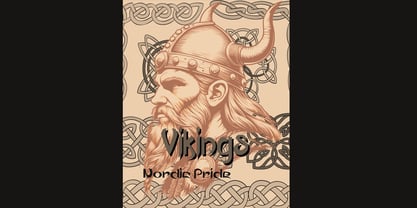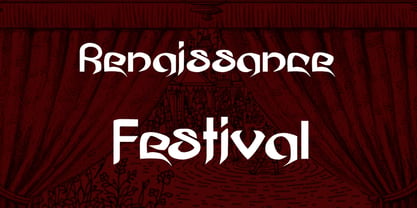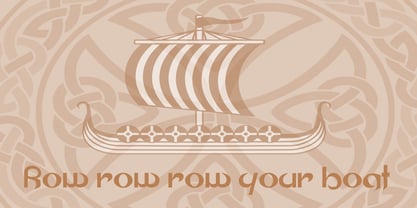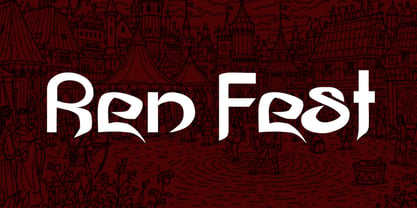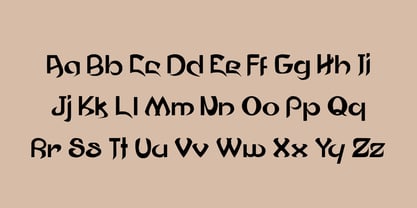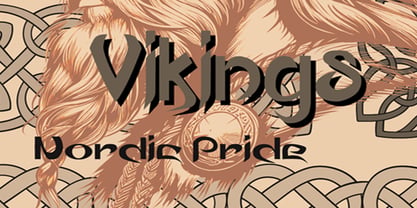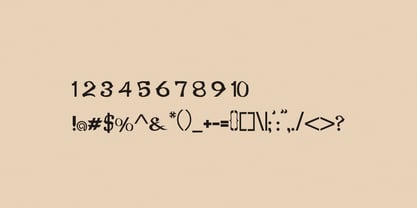
Ren Fest
Die Schriftfamilie Ren Fest wurde von John Pittman entworfen und von John Pittman veröffentlicht. Ren Fest enthält 1 Stile. Mehr über diese Familie
This is a single weight font. It is has a nice flow and each letter is made to contour to the next. I made it have an old fashion charm and the curves make it playful. It will adapt to other languages.
Ren Fest is a font that can be enjoyed by many. Its curvy design can cater to a variety of things like fairs, Dungeons and Dragons, or maybe even games. Ren Fest was first meant to have a Renaissance Viking vibe but it can be used for so much more. It can bring to life advertisements, logos, posters, or maps. Just let your imagination run wild and then you'll see the quality in this playful font.